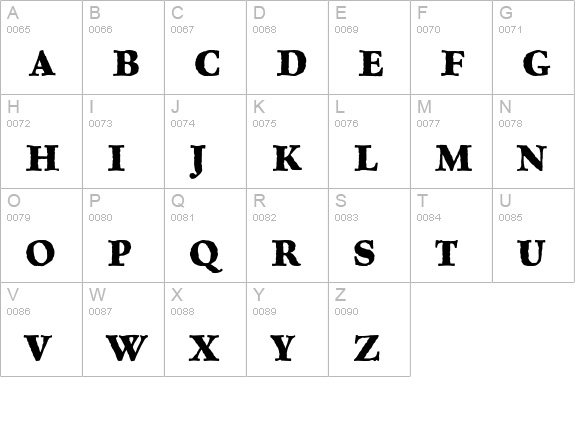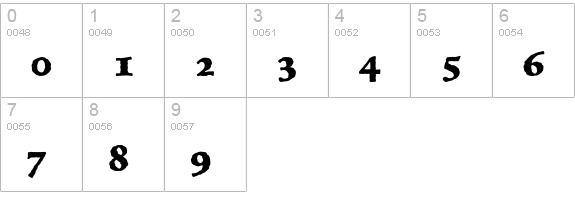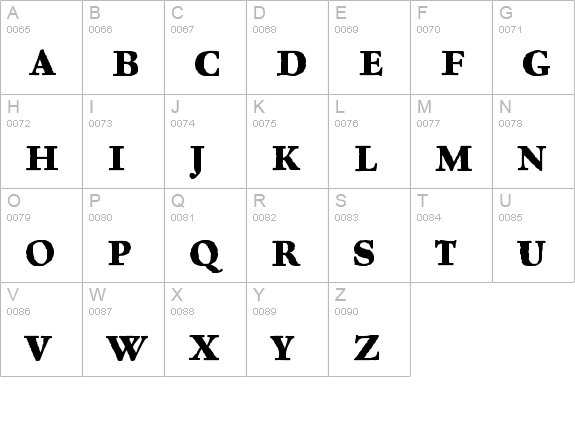
Celestia Antiqua Std Bold Font Details
Celestia Antiqua Std Bold is a strong, high-contrast variant in the Celestia typeface family \xE2\x80\x94 well suited to headlines, attention-grabbing titles, and strong calls-to-action.
Celestia Antiqua Std Bold is a sophisticated and elegant typeface that exudes timeless charm and classic appeal. With its bold and commanding presence, this font is perfect for creating eye-catching headlines, titles, and branding materials. The strong, yet refined letterforms of Celestia Antiqua Std Bold make it a versatile choice for a wide range of design projects, from print materials to digital layouts. The best part? Celestia Antiqua Std Bold is available for free download at FontsMarket.com. Whether you're a seasoned designer looking to add a touch of elegance to your work or a beginner exploring typography options, this font is a must-have in your collection. Don't miss out on the opportunity to elevate your designs with the timeless beauty of Celestia Antiqua Std Bold – download it today and unleash your creativity!